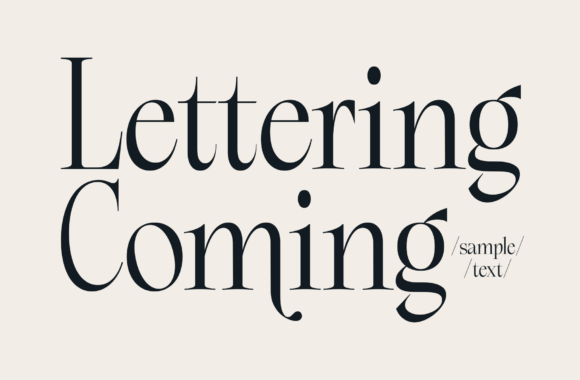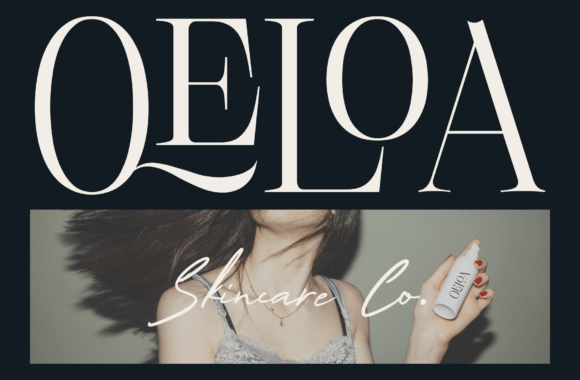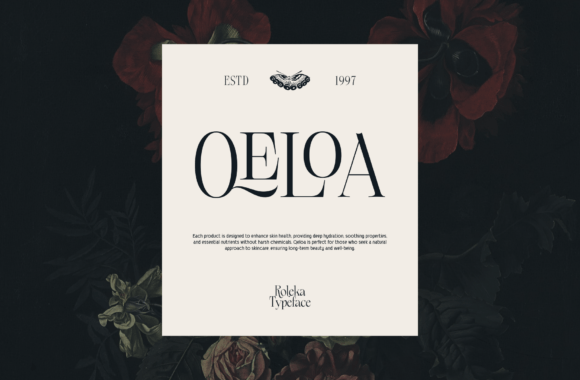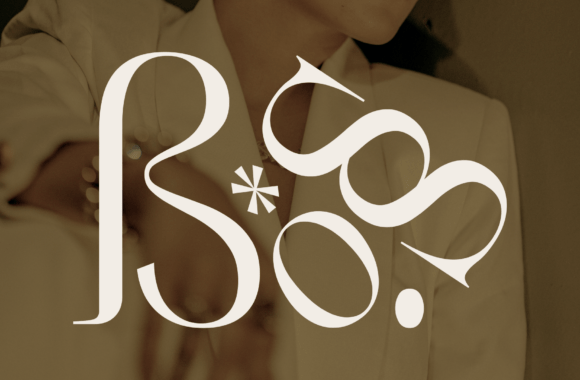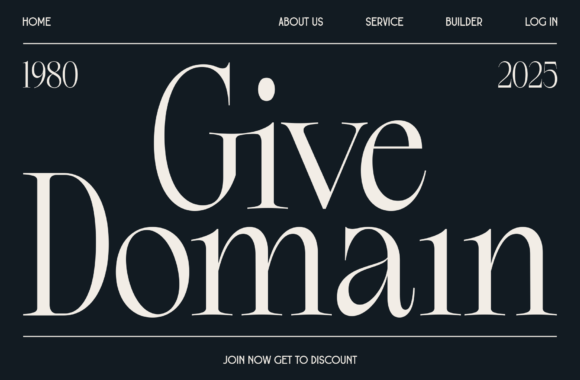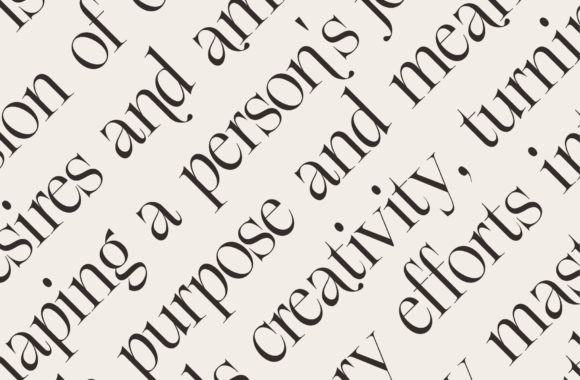
Introduction to Roleka Font Font
Fonts play a crucial role in design, and the Roleka Font font is a typeface that brings both character and versatility to any project. Whether you’re working on a branding project, a website, or a print design, the Roleka Font font offers a unique style that can elevate your work.
Roleka is a modern serif typeface with an elegant and sophisticated aesthetic.
Its design features high contrast between thick and thin strokes, creating a refined and luxurious appearance The elongated serifs and smooth curves add a sense of fluidity, while the sharp angles provide a contemporary edge.
Key Features of Roleka Font Font
Why Choose Roleka Font Font?
The Roleka Font font is more than just a typeface – it’s a design tool that helps you communicate your message with style and clarity. Its unique character set and versatile design make it suitable for a wide range of applications, from elegant invitations to bold headlines.
With its carefully crafted letterforms and balanced proportions, the Roleka Font font ensures readability and visual appeal across all mediums.
What makes Roleka Font font special?
The Roleka Font font stands out with its unique design, exceptional readability, and versatility across various design applications.